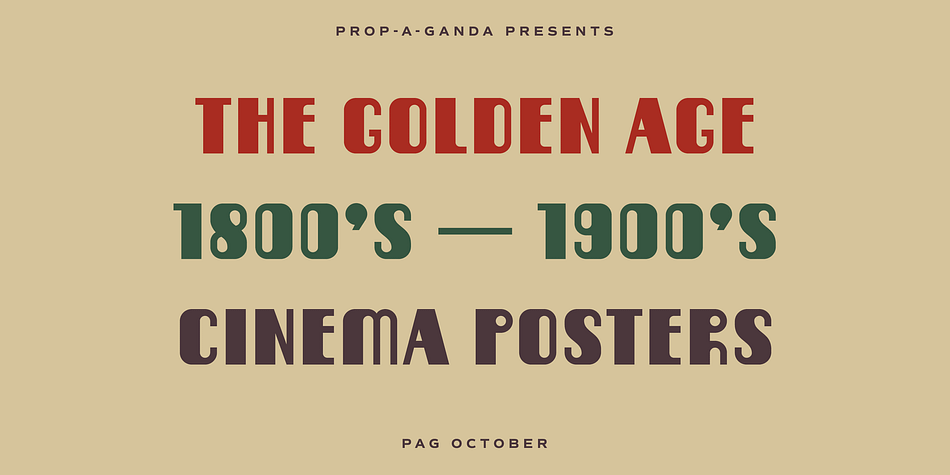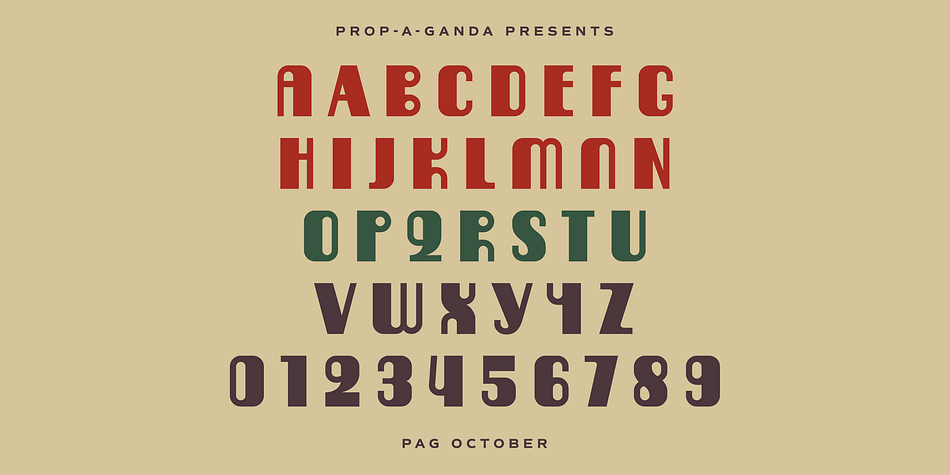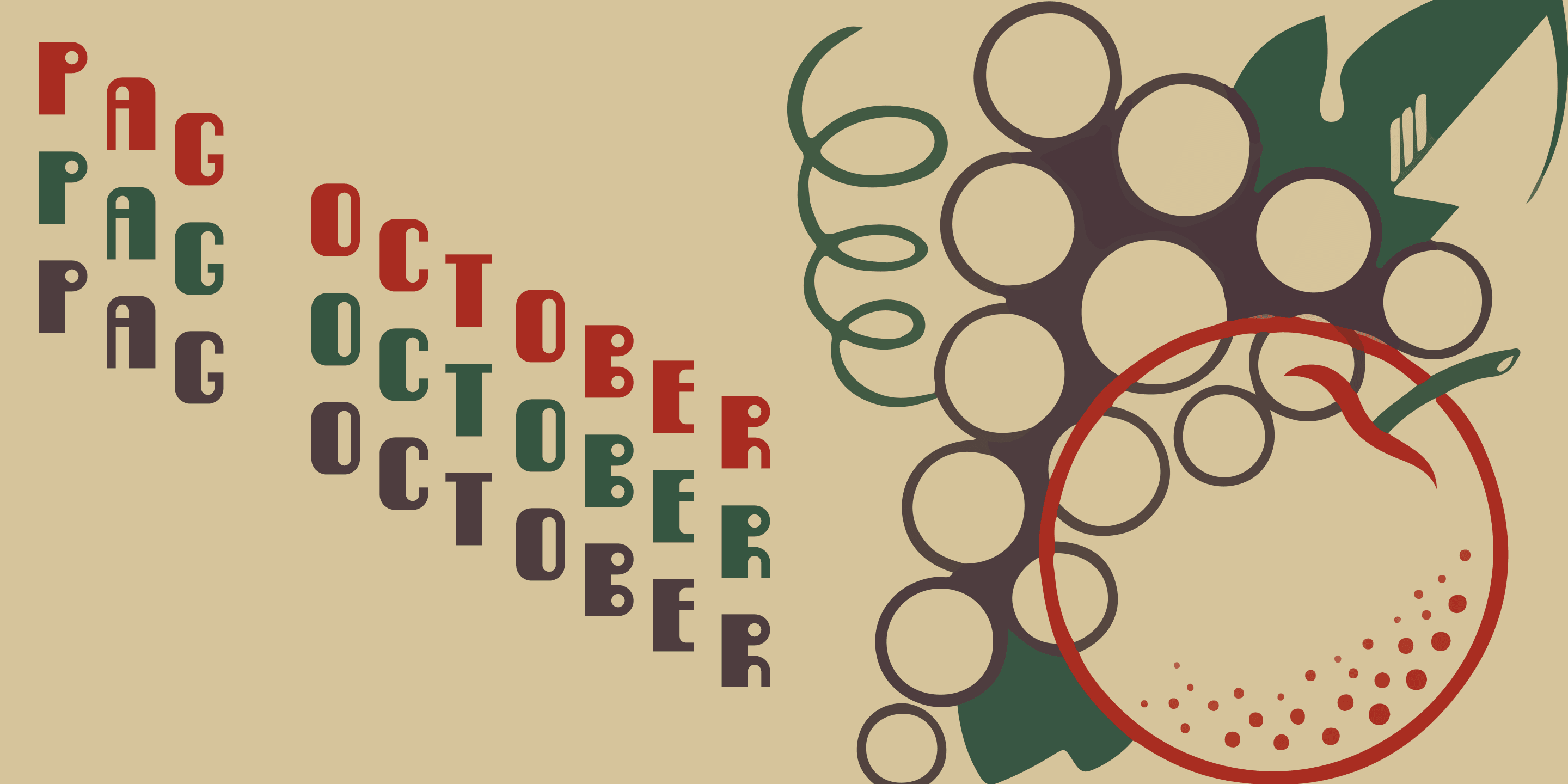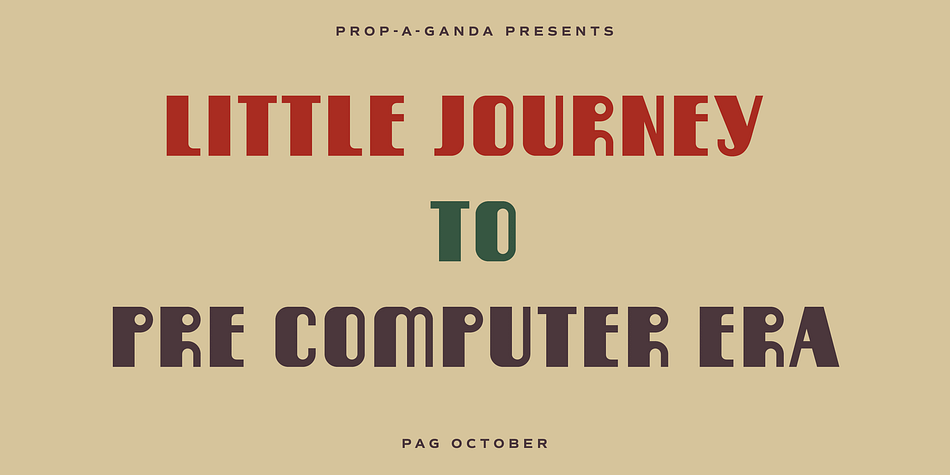
PAG October is a retro font published by Dharma Type.
Prop-a-ganda(PAG) offers retro-flavored fonts inspired by lettering on retro propaganda posters, retro advertising posters, retro packages all the world over. This is perfect font for your retrospective project.
PAG October, there is an extremely strong transition of line wight, it is eye-catching and unique. This is a retrospective font with friendly and cute look which works well for your posters, packages, and logos.